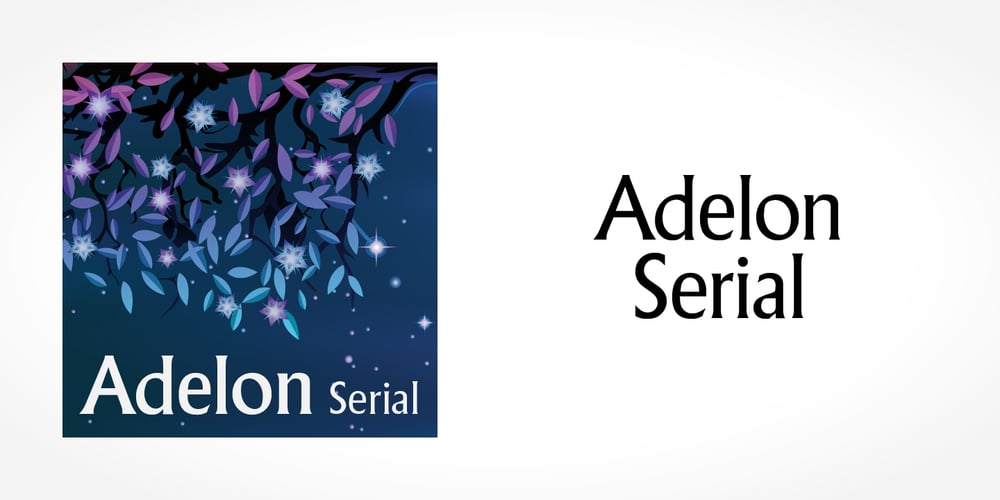
Adelon Serial
Adelon Serial font
Adelon Serial Font Family was designed by published by SoftMaker. Adelon Serial contains 12 styles and family package options. Adelon Serial is a classic flare serif typeface. Use it for titling, packaging, and other types of headlines.